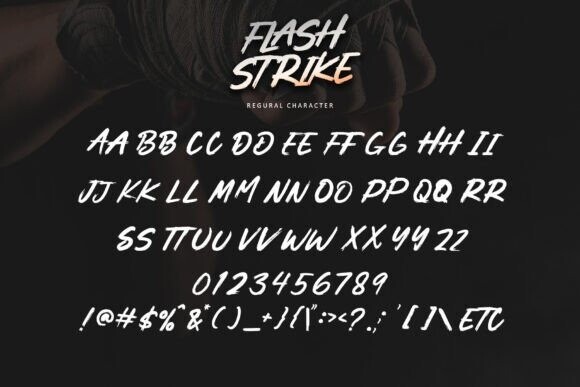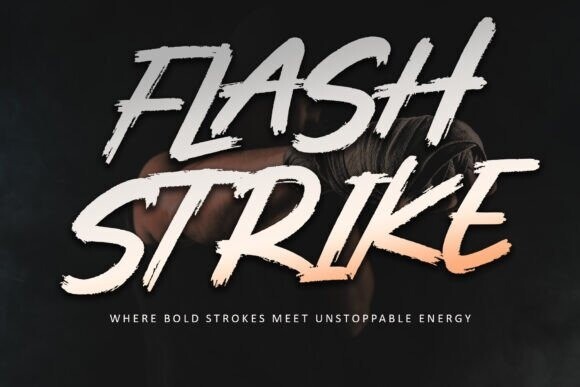
Flashstrike Font
Flashstrike Font, a high-energy brush font that electrifies your designs with dynamic movement and bold expression. With swift, expressive strokes and a textured finish, this font delivers a striking, modern aesthetic that demands attention. Perfect for bold headlines, edgy branding, and high-impact graphics, Flashstrike embodies speed and energy. Its fluid letterforms and vibrant glyphs infuse every piece with a sense of urgency and excitement. Featuring PUA encoding, it ensures seamless access to all its unique features. Ignite your designs with Flashstrike, a font that sparks creativity and brings your message to life.